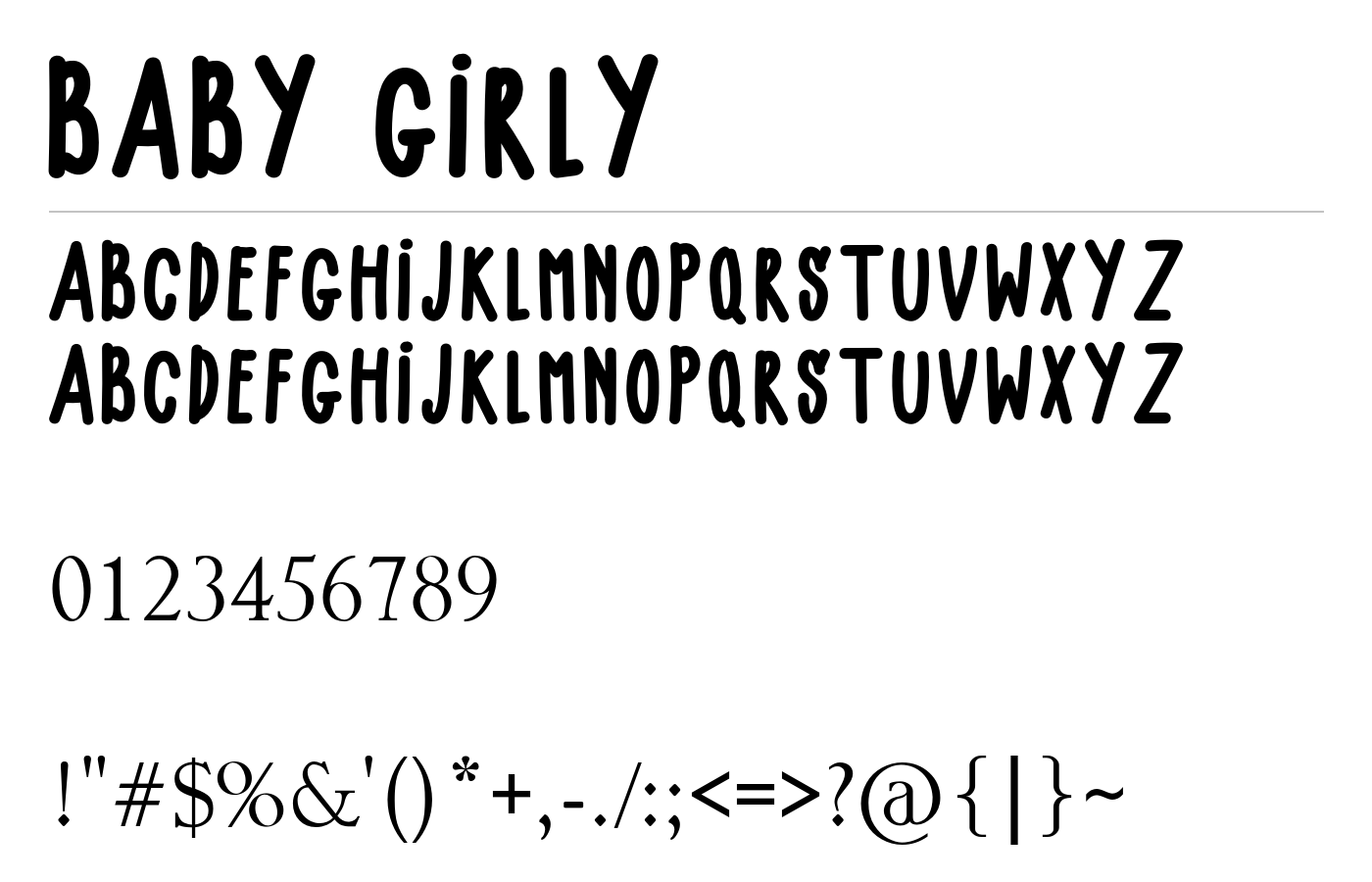
BABY GIRLY is a playful, casual sans serif font with rounded edges and a hand-drawn feel, perfect for creating a friendly and approachable vibe. Its tall, narrow letterforms and consistent stroke weight make it ideal for fun, informal designs like children’s products, invitations, and creative branding. This font works best in headlines or short texts where its quirky style can shine and capture attention.
BABY GIRLY Font
About BABY GIRLY Font